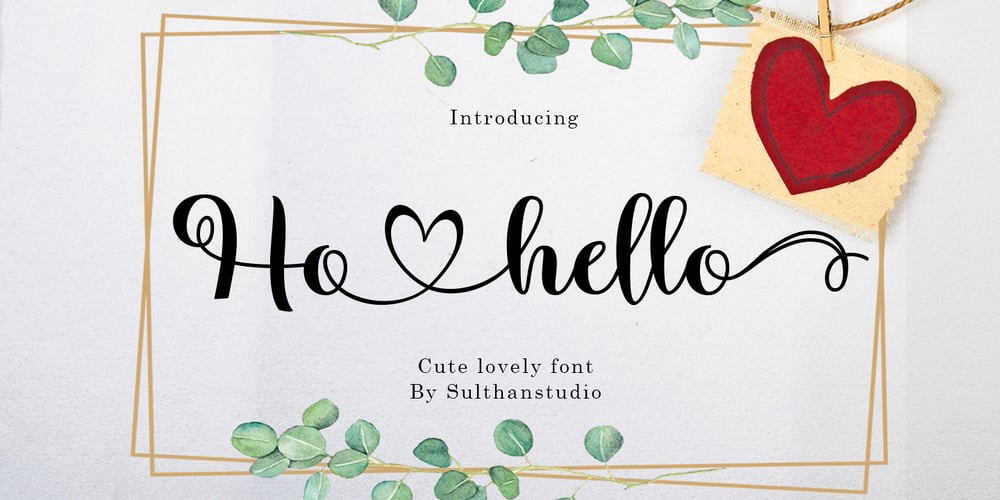
Ho hello Font Family was designed by Nasrullah and published by Sulthan Studio. Ho hello contains 1 styles and family package options. Ho hello is a cute romantic, elegant, and sweet calligraphy typeface with characters that dance along the baseline. It will add a luxury spark to any design project that you wish to create! This font is PUA encoded which means you can access all of the amazing glyphs and ligatures with ease!